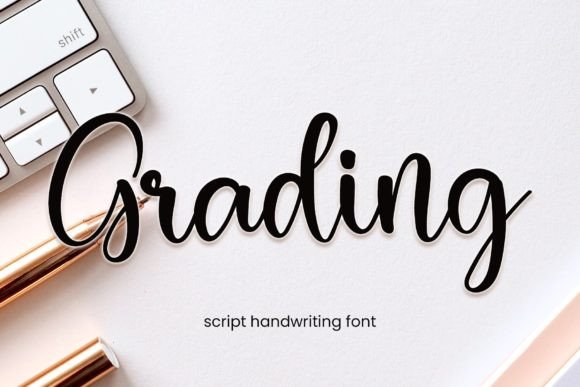
Introducing Grading Font: A Modern Script for Timeless Elegance
Immerse yourself in the world of Grading Font - a captivating handwritten script that exudes contemporary charm and timeless elegance. Inspired by the enduring beauty of classic calligraphy, Grading Font is meticulously crafted to enhance the artistry of your projects, adding a touch of sophistication and grace to every word.
With its striking contrast of thick and thin strokes, Grading Font dances across the page with a lively rhythm, creating a visually captivating experience. The carefully balanced letterforms exude a sense of harmony and unity, ensuring that your designs radiate an air of sophistication. Whether you're a seasoned designer or just starting, Grading Font is the perfect choice for adding a touch of creative flair to your projects.
Unleash Your Creativity with Endless Possibilities
The versatility of Grading Font is truly remarkable, making it the ideal choice for a wide range of design projects. From elegant invitations and heartfelt letters to eye-catching posters and stylish branding materials, Grading Font effortlessly adapts to your creative vision. Transform your designs into works of art, capturing the attention of your audience and leaving a lasting impression.
With Grading Font, you can effortlessly create designs that stand out from the crowd. Its unique character and charm will add a touch of personality to your projects, making them truly memorable. Whether you're a seasoned professional or just starting your design journey, Grading Font is the perfect tool to elevate your creativity and make your ideas come to life.
Immerse Yourself in a World of Beauty and Inspiration
Dive into the world of Grading Font and let your creativity soar. This exquisite script will captivate your imagination, inspiring you to create designs that are both visually stunning and emotionally resonant. Its timeless elegance will add a touch of sophistication to your projects, while its modern twist ensures that your designs remain relevant and captivating.
Grading Font is more than just a font; it's a gateway to a world of artistic expression. It's an invitation to explore the boundless realms of creativity and share your unique vision with the world. Download Grading Font today and embark on a journey of design excellence, where every project becomes a masterpiece.